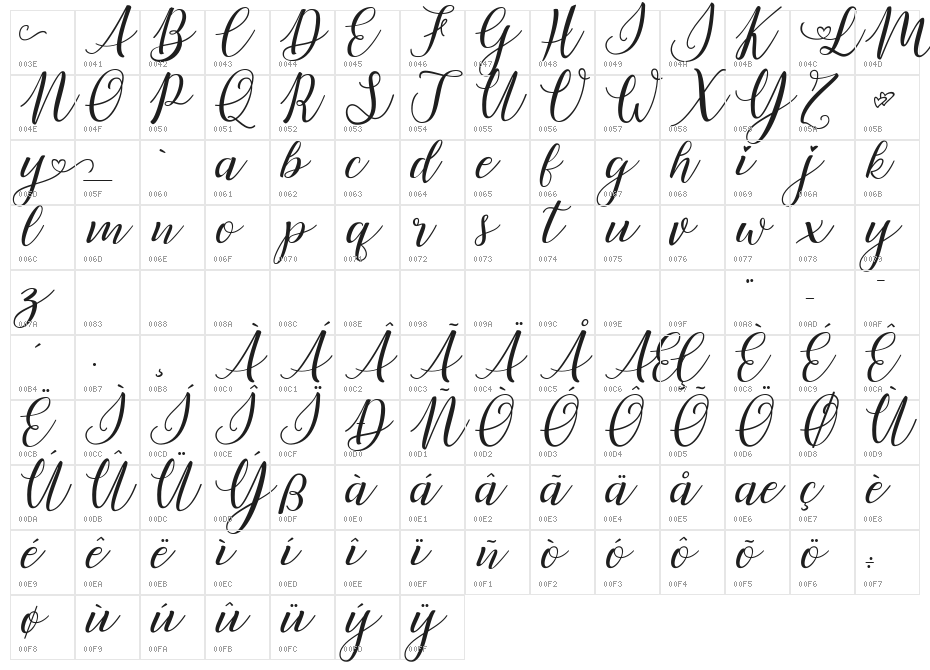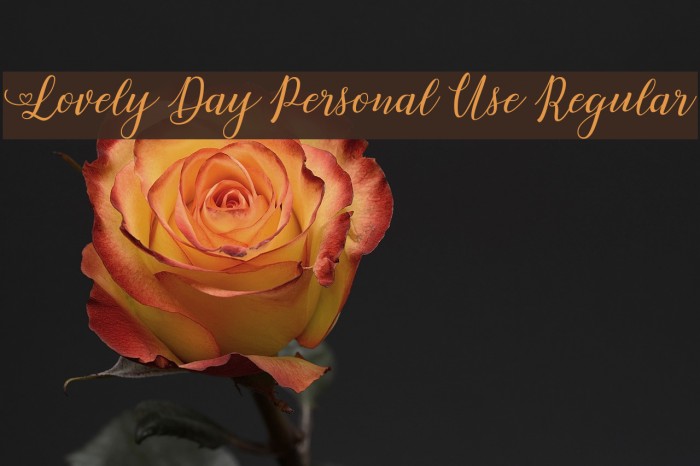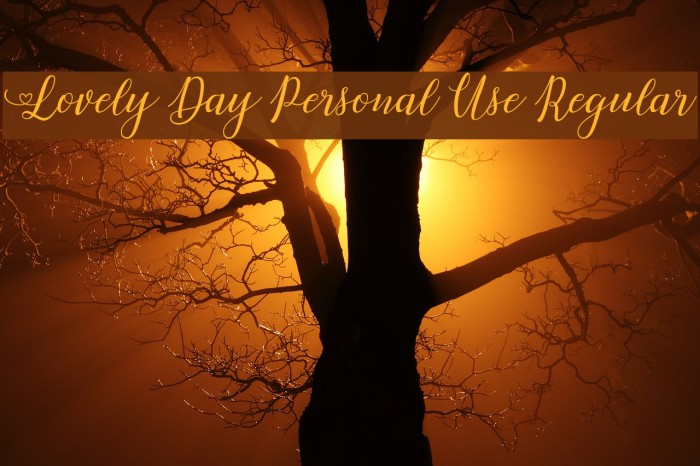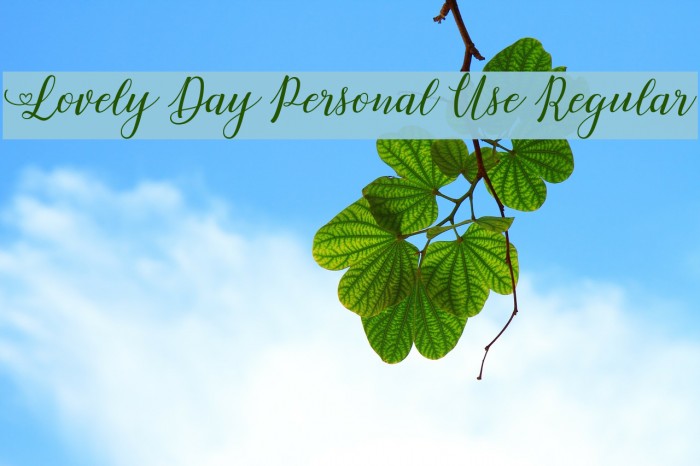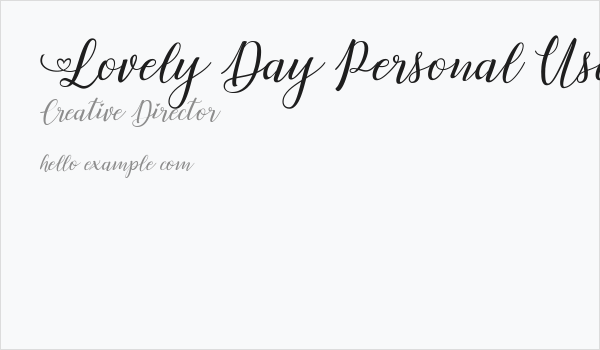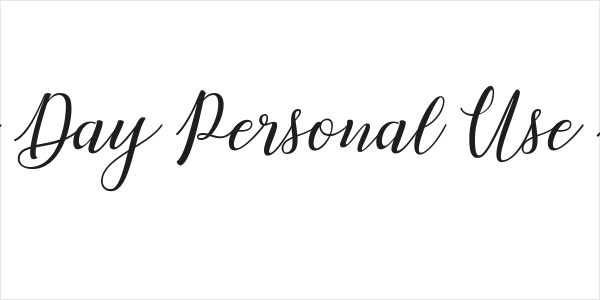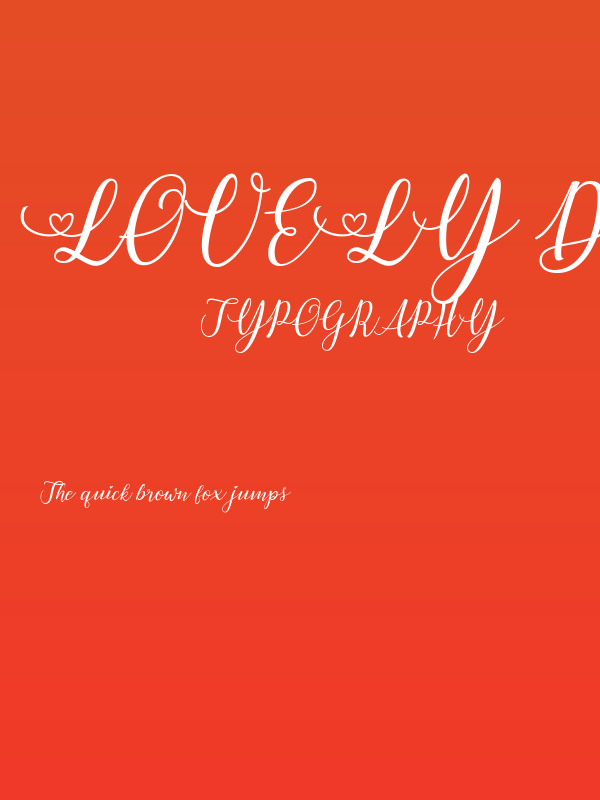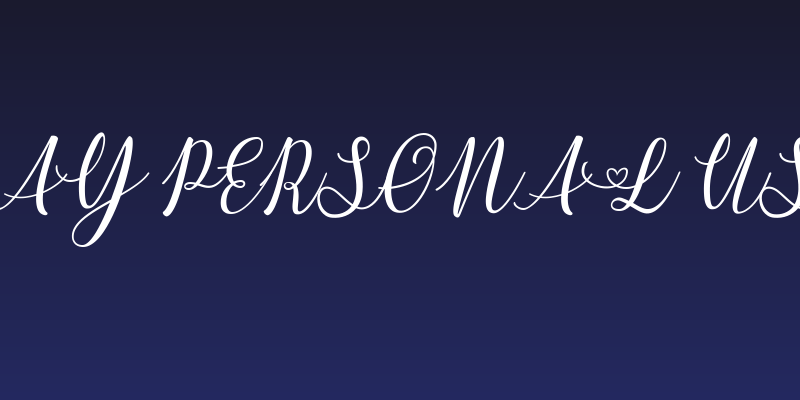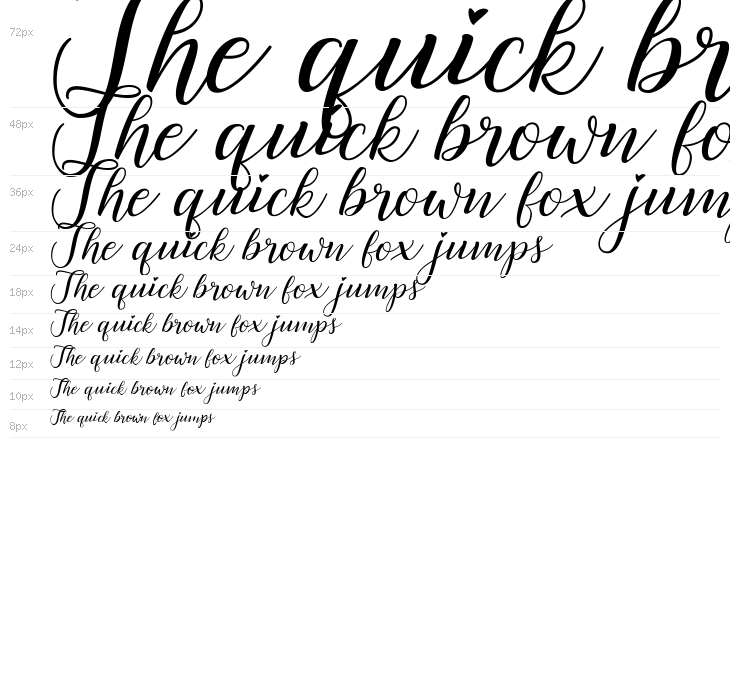
Lovely Day Personal Use Regular Font
Lovely Day Personal Use Regular Description
This font features an elegant and flowing script style, characterized by its cursive and interconnected letterforms. The uppercase letters are adorned with delicate swashes and loops, adding a touch of sophistication and romance. The lowercase letters maintain a consistent flow, with some characters featuring unique heart-shaped accents that enhance its charm. The overall appearance is graceful and decorative, making it ideal for projects that require a personal and artistic touch. The font's design is both modern and timeless, suitable for a variety of creative applications.
| Proposed Projects | Ideal for wedding invitations, greeting cards, branding, and romantic-themed designs. |